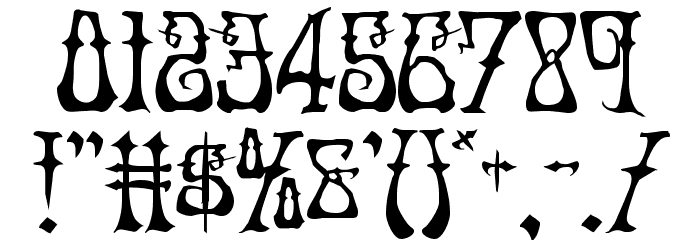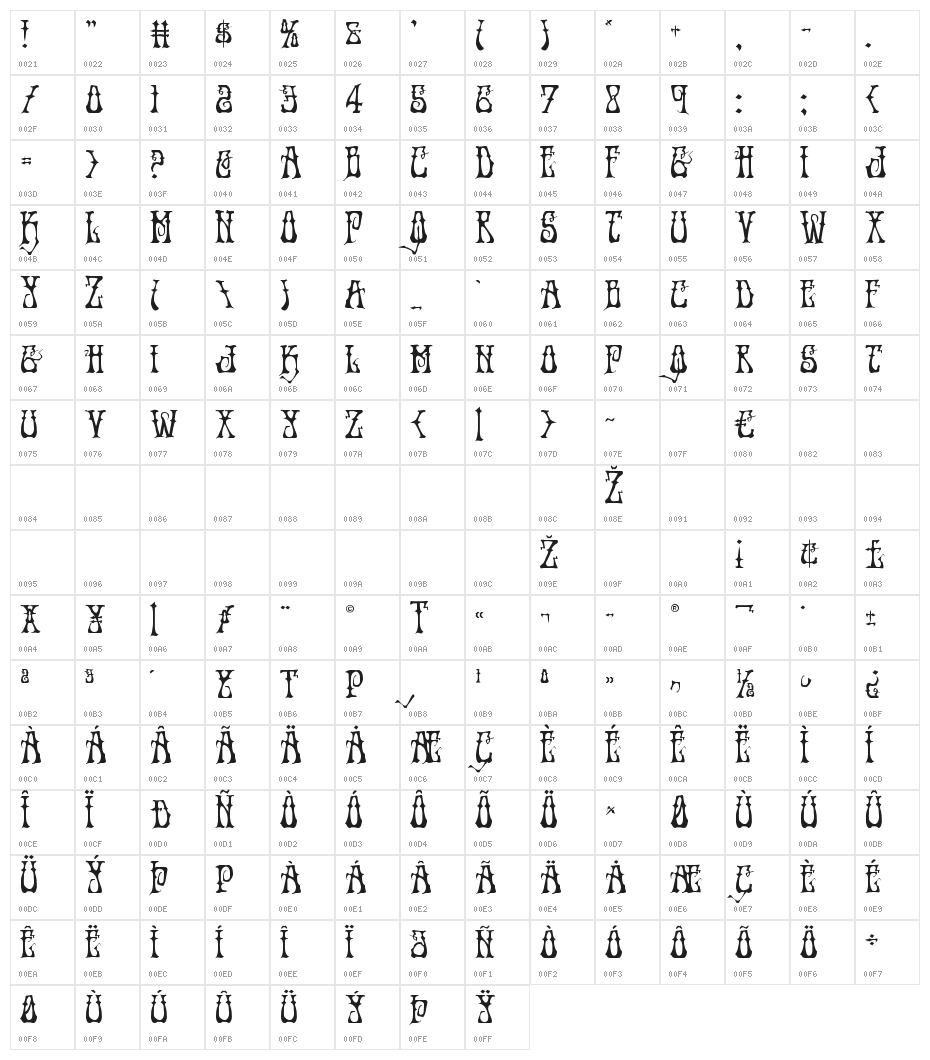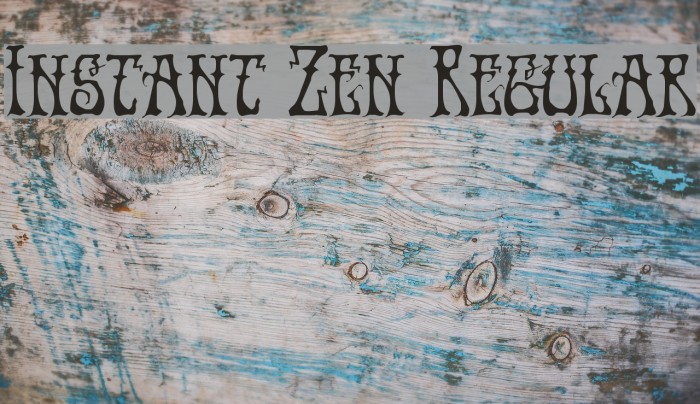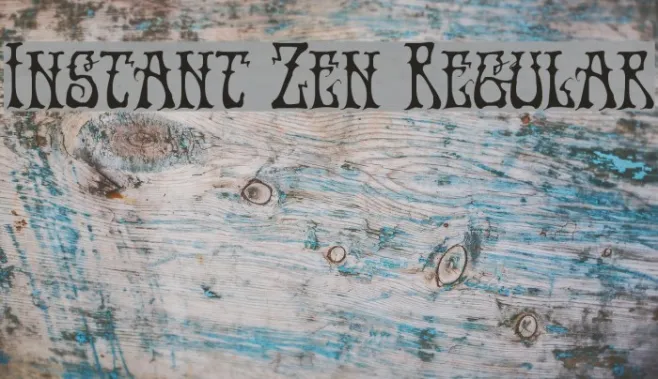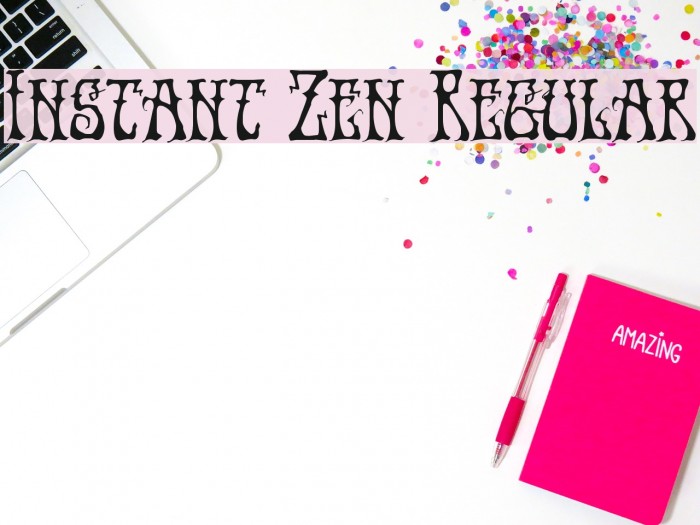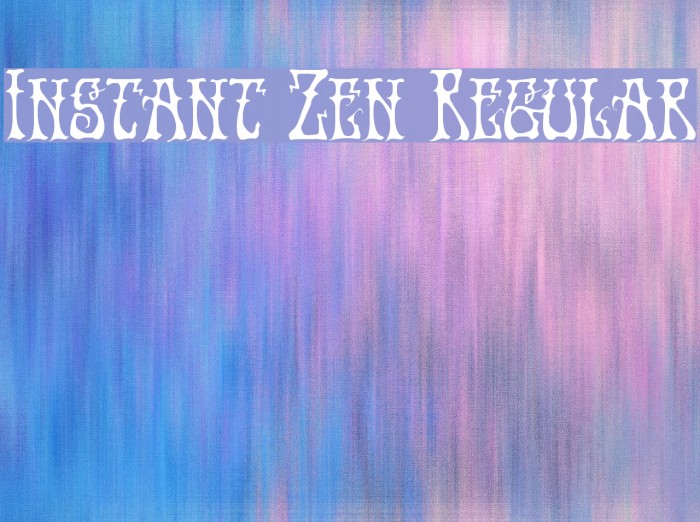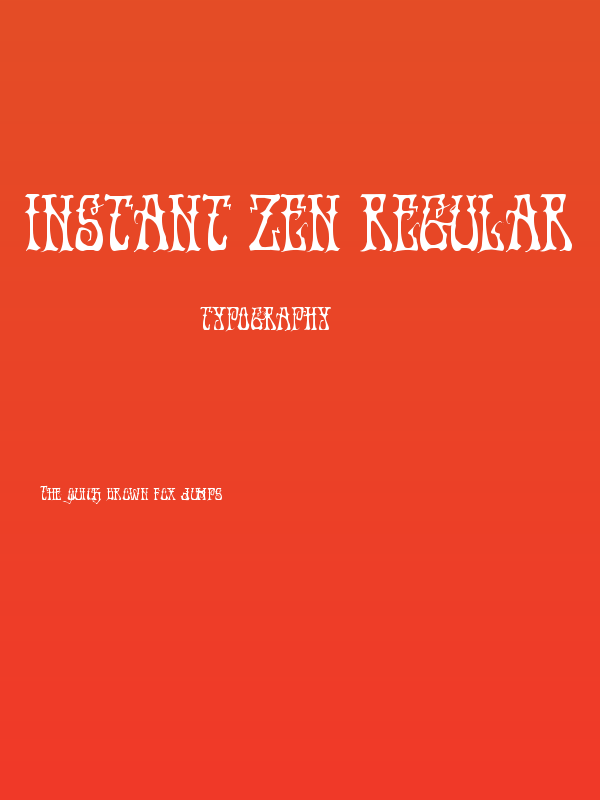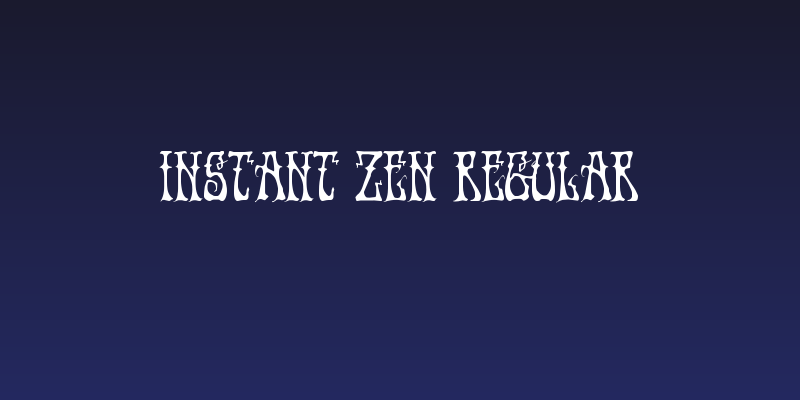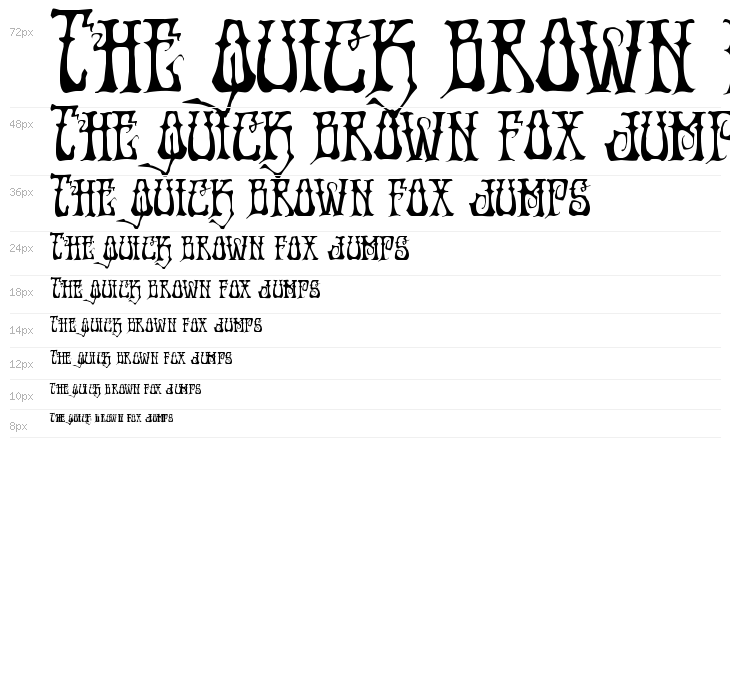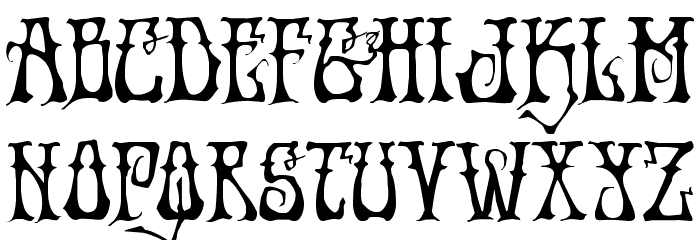
Instant Zen Regular Font
Instant Zen Regular Description
This font features a highly decorative and artistic style, characterized by intricate and elaborate details on each letter. The uppercase and lowercase letters exhibit a unique blend of sharp edges and flowing curves, creating a dynamic and visually striking appearance. The numerals and special characters maintain this ornate design, ensuring consistency across all elements. The font's bold strokes and high contrast between thick and thin lines contribute to its dramatic and eye-catching look, making it ideal for projects that require a strong visual impact.
| Proposed Projects | Ideal for use in posters, album covers, branding, and any project that requires a bold and artistic statement. |